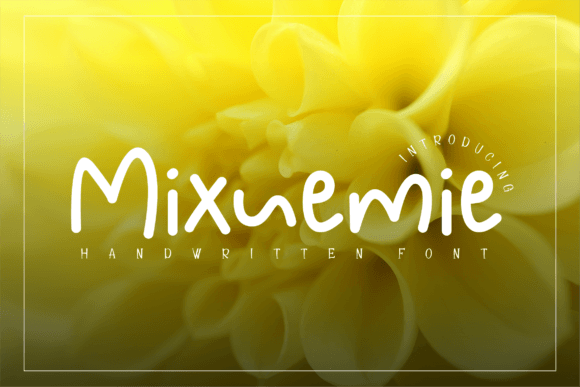
Meet Mixuemie Script, a font family that embodies elegance and femininity. Crafted with the utmost care and attention to detail, each letter dances across the page like a delicate ballerina. Whether you're designing wedding invitations, creating heartfelt greeting cards, or adding a personal touch to your branding, Mixuemie Script is the perfect choice.
Fashioned by the adept hands of emprit.graphic, a renowned font designer known for their exquisite creations, Mixuemie Script is a visual masterpiece that commands attention. Its charming curves and playful swashes exude a sense of joy and whimsy, making it ideal for designers seeking to evoke a sense of magic and enchantment in their work.
This versatile script can be effortlessly paired with other fonts, allowing you to create captivating designs that are sure to leave a lasting impression. Mixuemie Script's harmonious blend of sophistication and playfulness makes it perfect for a variety of applications, including logos, posters, social media graphics, and website design.
Indulge in the boundless creativity that Mixuemie Script offers. Let your imagination run wild as you explore the endless possibilities of this enchanting font family. From delicate wedding invitations to playful children's book illustrations, Mixuemie Script is your gateway to a world of captivating designs that will ignite your passion and leave your audience spellbound.
Embrace the beauty of Mixuemie Script today and embark on a creative journey that will transform your designs into works of art.